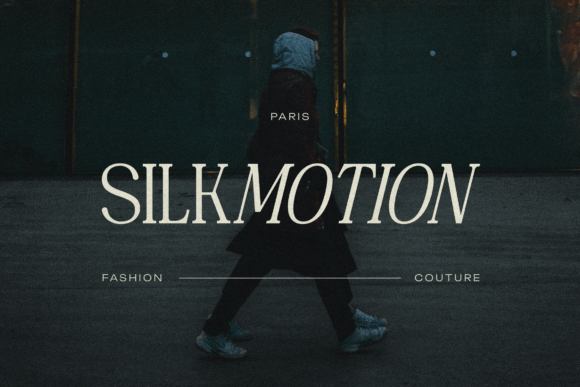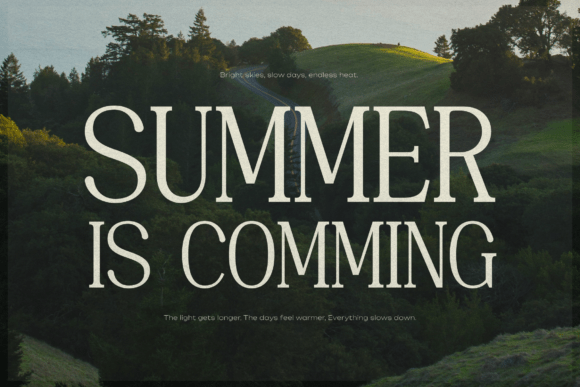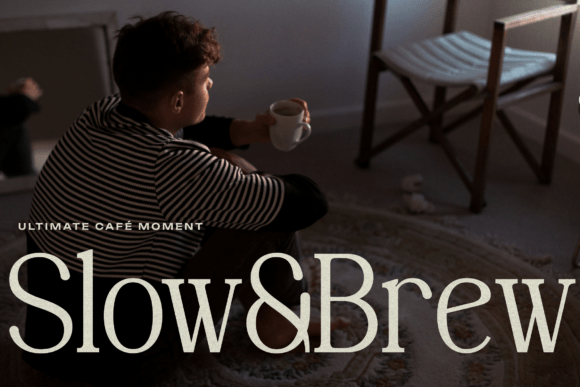
Introduction to Deiloya Font
Deiloya is a sophisticated and high-end display font that presents a refined, β€œclassic serif” aesthetic.
πŸ‘€ Author Gracetypestudio
This regular version of the typeface features high-contrast letterforms characterized by elegant, sharp serifs and a stable, upright posture This font is a premier choice for cinematic titles, luxury brand identities, high-fashion editorial headers, and upscale event stationery.
Key Features of Deiloya Font
Why Choose Deiloya Font?
Deiloya Font offers exceptional quality and versatility, making it a valuable addition to your design toolkit. Whether you’re creating for personal projects or commercial use, Deiloya Font delivers professional results.